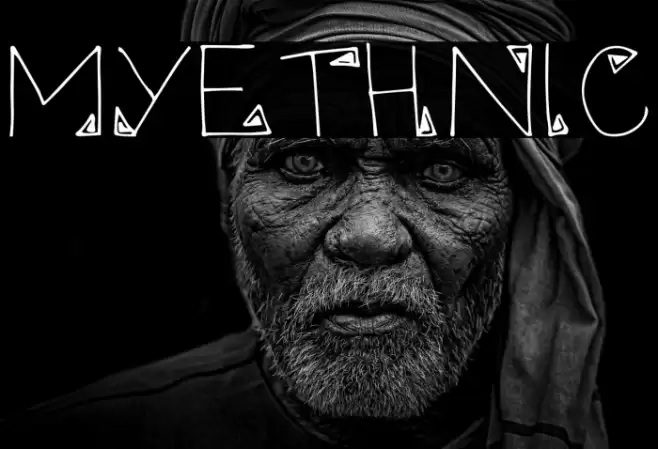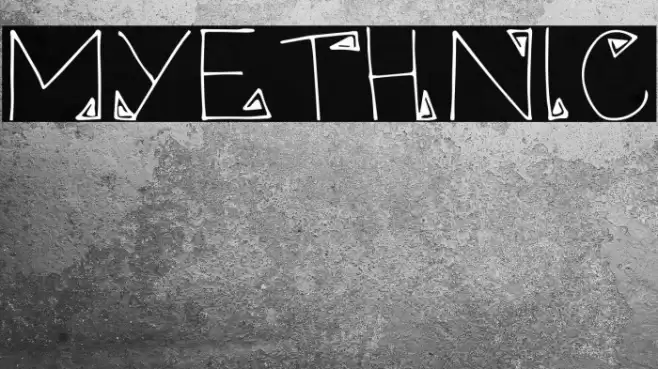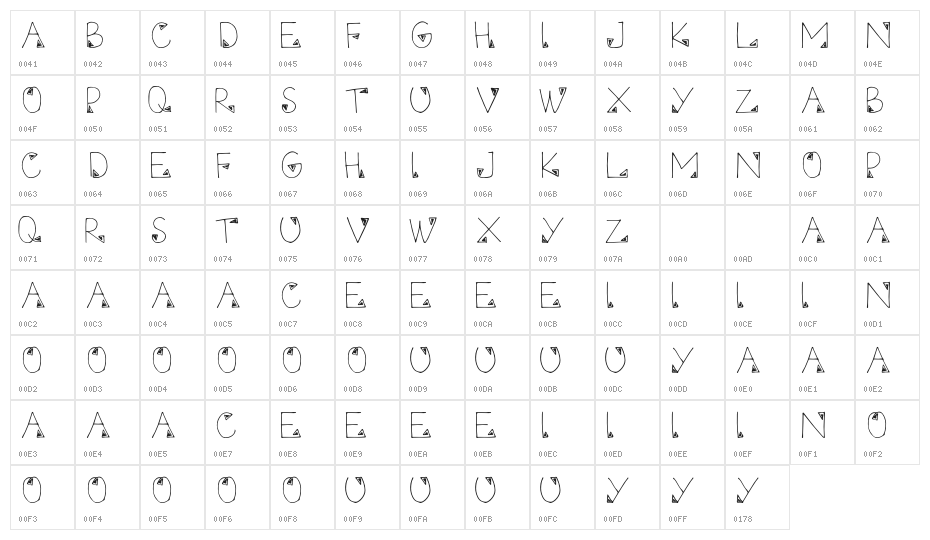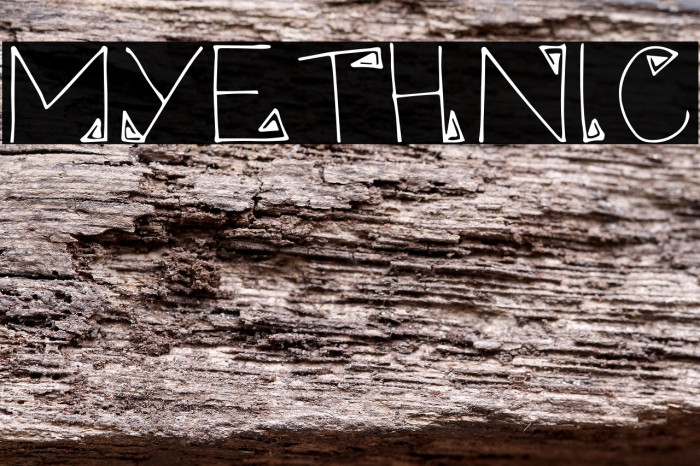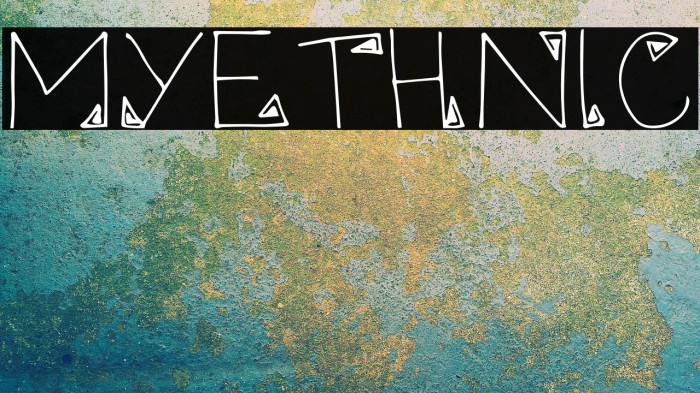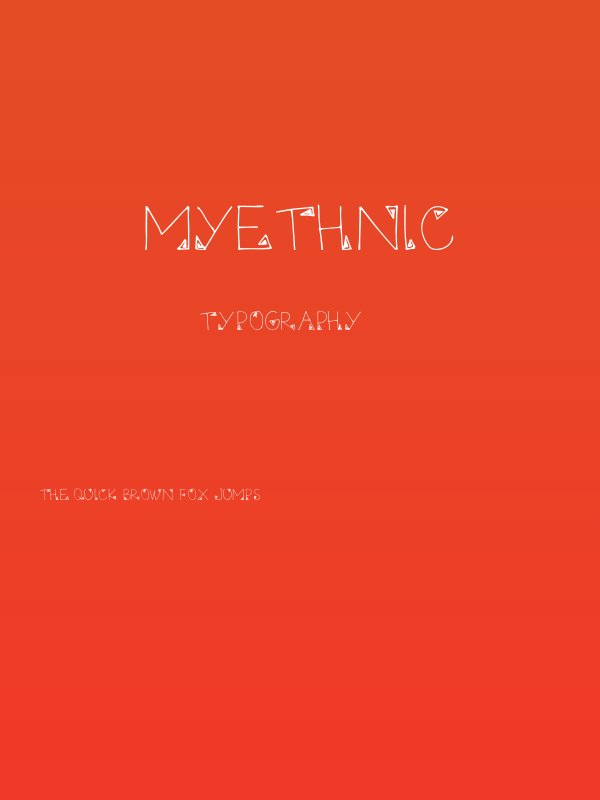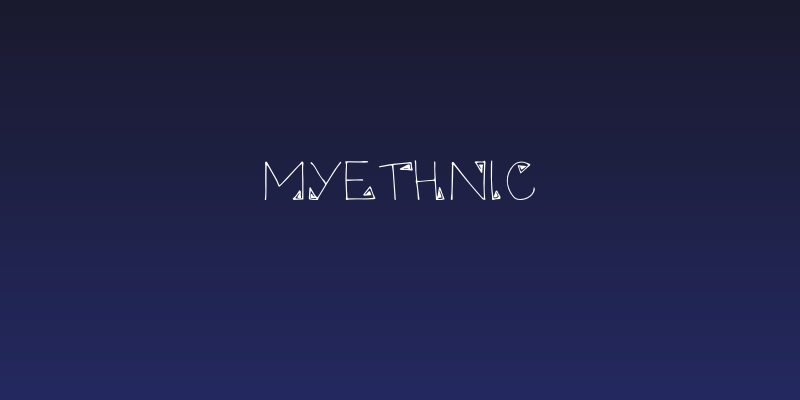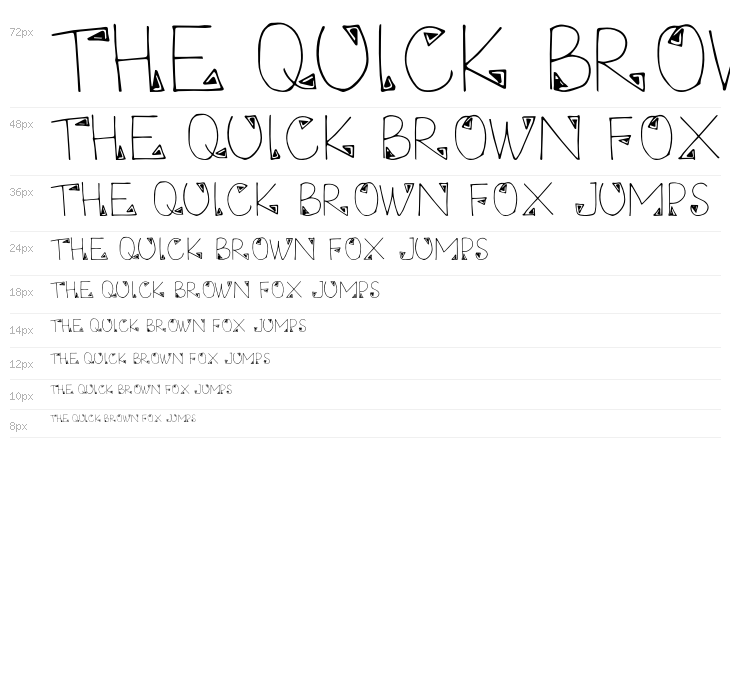
Myethnic Font
Myethnic Description
This font features a unique and artistic design, incorporating geometric shapes within each character. The letters are outlined with thin strokes, and each character includes a distinctive triangular pattern that adds a decorative touch. The uppercase and lowercase letters maintain a consistent style, with the geometric elements providing a sense of cohesion and creativity. The numbers and special characters follow the same design principles, ensuring uniformity across the entire character set. This font is ideal for projects that require a playful yet sophisticated aesthetic.
A decorative font with geometric patterns and thin outlines from Uncategorized fonts.
- Proposed Projects: Ideal for creative projects such as posters, invitations, and branding materials that seek a unique and artistic flair.